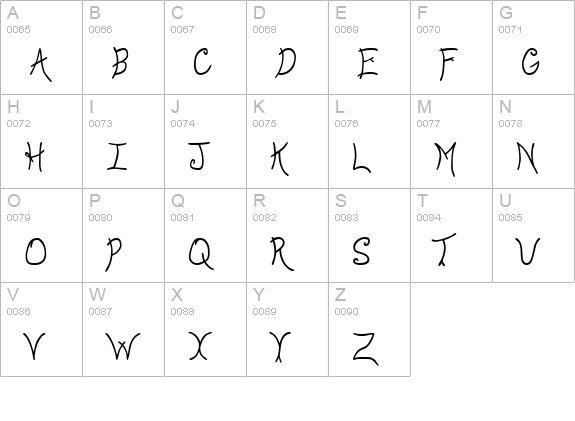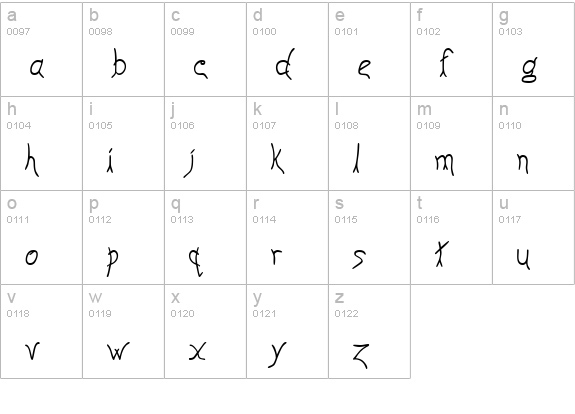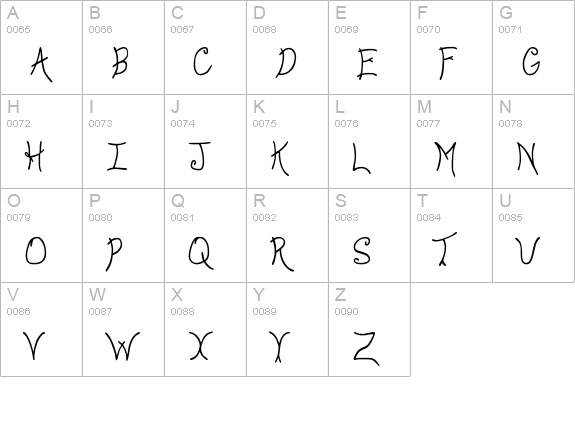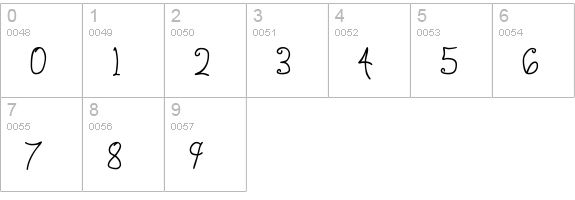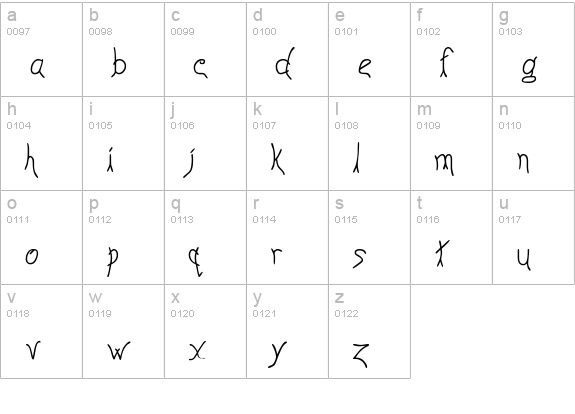
Anyway Font Details
Introducing Anyway font, a modern and versatile typeface designed to bring a touch of sophistication to your graphic design projects. This elegant font features clean lines and a stylish appearance, making it perfect for a wide range of applications, from logos to branding, web design, and more. The Anyway font comes in a variety of weights and styles, allowing you to create beautiful typography that stands out. Whether you're looking for a sleek and professional look or a more creative and artistic design, Anyway font has got you covered. Best of all, Anyway font is available for free download at FontsMarket.com. So why wait? Add this stunning font to your collection today and take your designs to the next level with Anyway font.